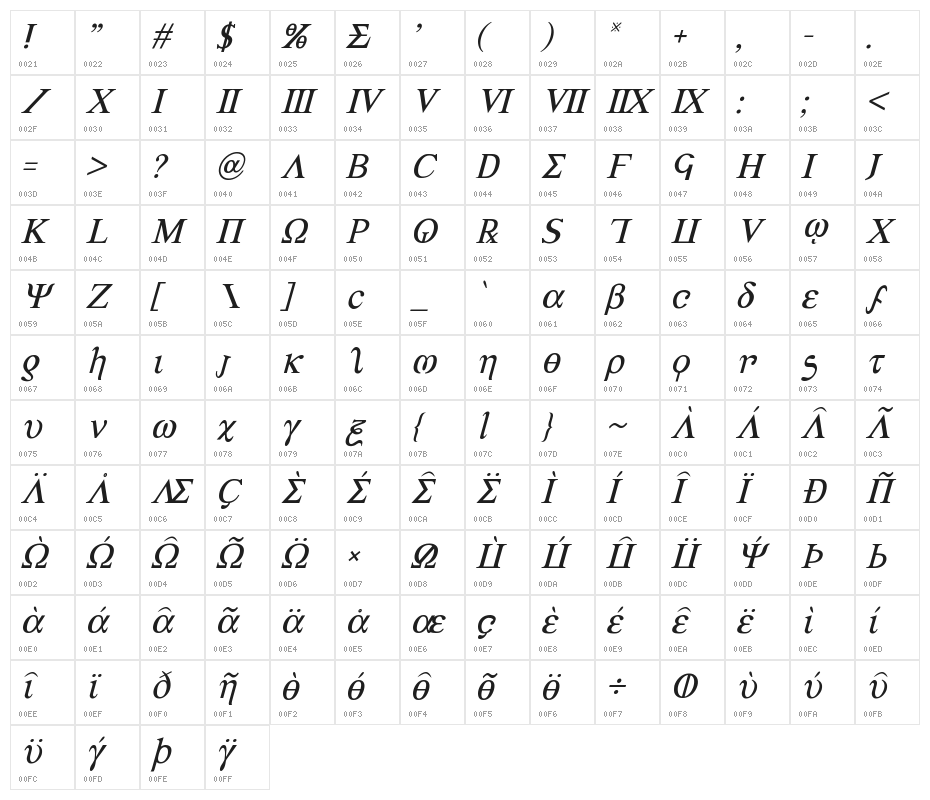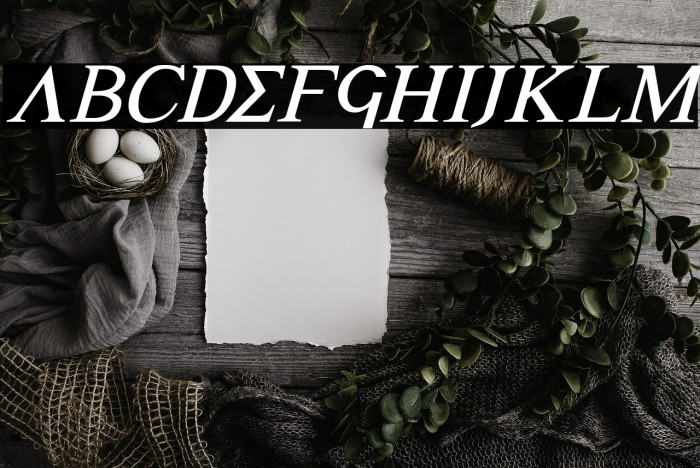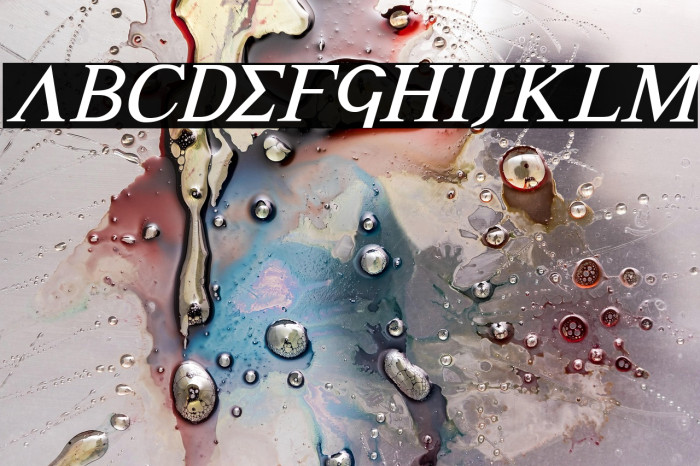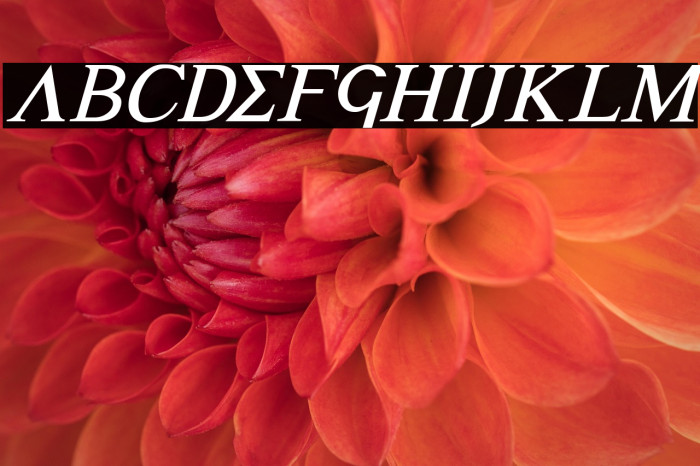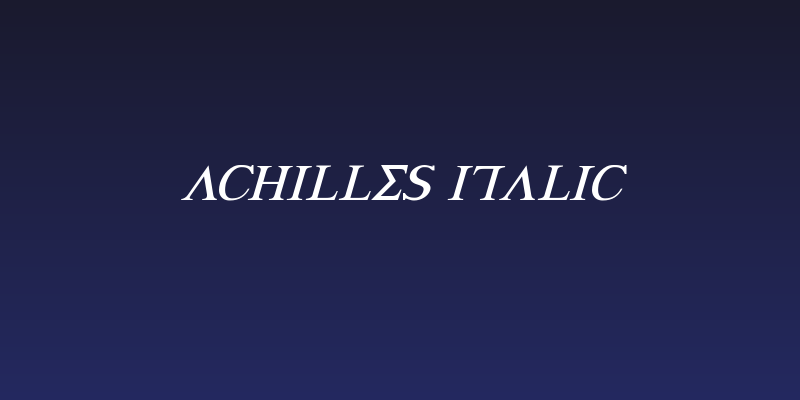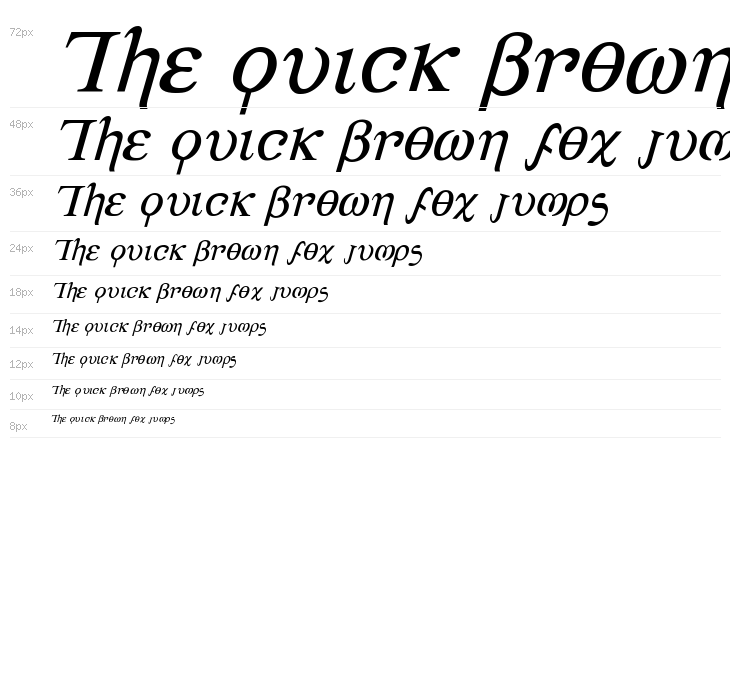
Achilles Italic Font
Achilles Italic Description
This font features a classic italic style with elegant curves and a refined appearance. The uppercase letters are slightly slanted, giving a sense of motion and sophistication. The lowercase letters maintain a consistent flow, enhancing readability while retaining a stylish flair. The numerals are well-proportioned, aligning seamlessly with the overall design. Special characters are crafted with attention to detail, adding to the font's versatility. The strokes are moderately thick, providing a balanced contrast that is neither too bold nor too light. This font exudes a timeless elegance, making it suitable for a variety of applications.